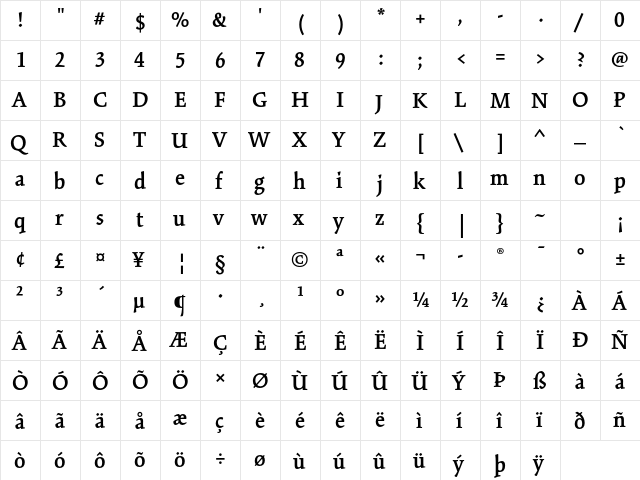
Kinesis Std Semibold
| Designer | Mark Jamra |
Design Context for Kinesis Std Typeface
Kinesis Std is a composed and adaptable typeface that performs quietly and consistently across a wide range of design contexts. The heavy weight commands attention and anchors typographic hierarchies.